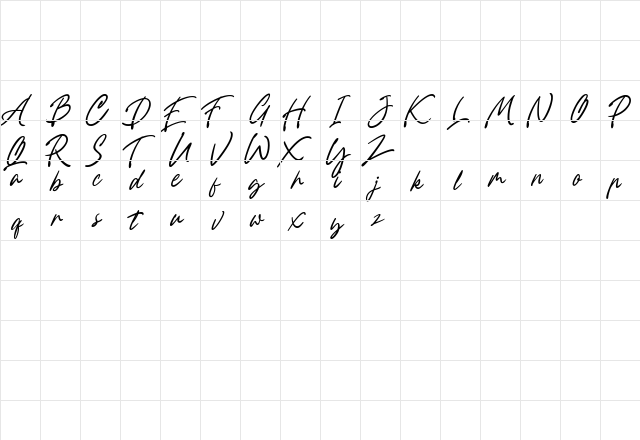
Fountastic Script Personal Use Regular
| Foundry | Hanaksara Studio |
| Designer | Darul Qutni Hakiki |
Design Context for Fountastic Script Personal Use Typeface
Fountastic Script Personal Use brings a calligraphic fluidity to the page — its connecting strokes and expressive curves give it an unmistakably human quality.
Font Pairing: Combine Fountastic Script Personal Use with a simple geometric sans for maximum contrast — the tension between flowing curves and clean structure is a classic typographic pairing.
Pro Tip: Pair Fountastic Script Personal Use with a clean sans-serif for supporting text. The contrast between fluid script and geometric structure creates an elegant typographic hierarchy.